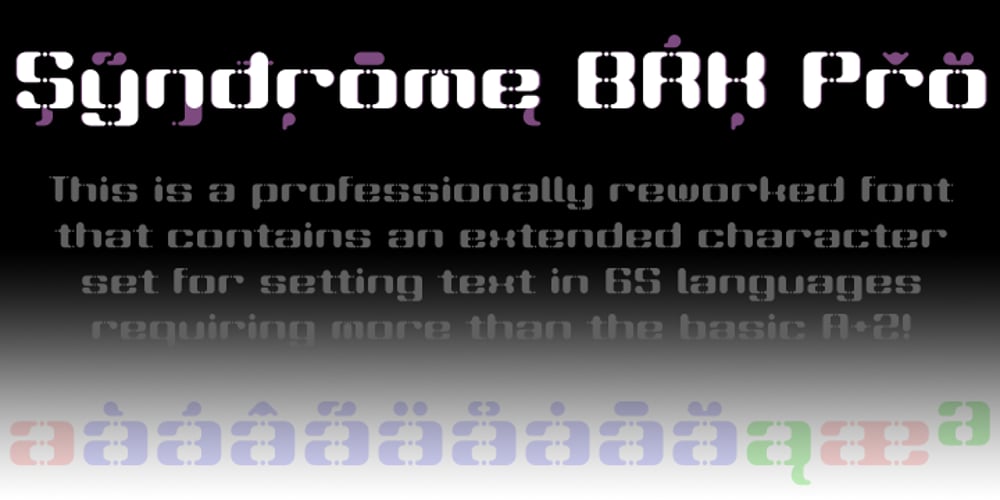
Syndrome BRK Pro Font Family was designed by Roger S. Nelsson, Brian Kent and published by CheapProFonts. Syndrome BRK Pro contains 1 styles and family package options. I just loved the design idea behind this font, but the original font had a lot of ugly artifacts – so I have completely redrawn ALL the letters, before expanding the character set. The lowercase has been redrawn with a higher x-height, making the font even more usable (with more “normal” word shapes). ALL fonts from CheapProFonts have very extensive language support: They contain some unusual diacritic letters (some of which are contained in the Latin Extended-B Unicode block) supporting: Cornish, Filipino (Tagalog), Guarani, Luxembourgian, Malagasy, Romanian, Ulithian and Welsh. They also contain all glyphs in the Latin Extended-A Unicode block (which among others cover the Central European and Baltic areas) supporting: Afrikaans, Belarusian (Lacinka), Bosnian, Catalan, Chichewa, Croatian, Czech, Dutch, Esperanto, Greenlandic, Hungarian, Kashubian, Kurdish (Kurmanji), Latvian, Lithuanian, Maltese, Maori, Polish, Saami (Inari), Saami (North), Serbian (latin), Slovak(ian), Slovene, Sorbian (Lower), Sorbian (Upper), Turkish and Turkmen. And they of course contain all the usual “western” glyphs supporting: Albanian, Basque, Breton, Chamorro, Danish, Estonian, Faroese, Finnish, French, Frisian, Galican, German, Icelandic, Indonesian, Irish (Gaelic), Italian, Northern Sotho, Norwegian, Occitan, Portuguese, Rhaeto-Romance, Sami (Lule), Sami (South), Scots (Gaelic), Spanish, Swedish, Tswana, Walloon and Yapese.